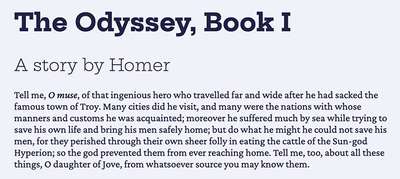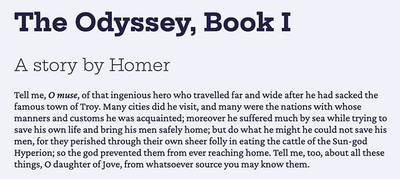
While I was at ATypI Tokyo a couple weeks ago, Google had some big announcements (I covered those a bit last week). The new version of their API was particularly great to hear, as this marks the first support for using variable fonts on their platform. It’s a small set of typefaces, but there is some nice variety and what they have is really well done. There are 10 typefaces in all, with a selection of serifs, sans, rounded, slab, and monospace. Two of the serifs have italics as well, making them an interesting experiment for body copy usage. I created an example page that we played around with a bit in my workshop last week, and included it live in my talk, both at Web Unleashed in Toronto.
A sample page in CodePen
A sample page on CodePen loading Hepta Slab and Crimson Pro as variable fonts from Google Fonts' new API
I’ve now created a demo on CodePen as well, and will walk through the setup here with a few examples. As the launch announcement page states, the syntax is pretty strict, but it didn’t take long to get up and running with it, and now it’s feeling pretty snappy.
A list of available Variable Fonts on Google
Here are all the different variable fonts you can play with for now
In going through the announcement it’s clear that this will eventually be how all the fonts are served, not just specifically variable fonts. You can still request a single weight of a font, like so:
https://fonts.googleapis.com/css2?family=Roboto:wght@700
You can see that the font-family attribute/value pair is the same, but the way you specify weight and italic is a little different. Here’s the current syntax:
/css?family=Roboto:700
You’ll note that whereas the original syntax just expected a weight value (in this case 700) after the family name, now you’re specifying ‘wght’ and supplying a value. This is so when requisition a variable font, it’s now possible to specify an axis (or more than one), and then supply a second set of values after the ‘@’ sign. Multiple weights can be requested too:
/css2?family=Roboto:wght@400;700
Note that the weight values are listed after the ‘@’ sign separated by semicolons. If you wanted to add italics, you have to specify each combination:
/css2?family=Roboto:ital,wght@0,100;1,100;1,700
This will get you Italic and weight combinations of ‘upright 100’, ‘Italic 100’, and ‘Italic 700’.
Now for the variable fonts. To get Crimson Pro with a weight axis (with a range of 200 to 900), you would request it like this:
/css2?family=Crimson+Pro:wght@200..900
Note that this time the values after the ‘@’ sign are separated by ‘…’ which indicates that this is a range, not two separate values. When requesting Italics as well as upright, you have to indicate the axes and ranges requested for each:
/css2?family=Crimson+Pro:ital,wght@0,200..900;1,200..900
Or just Italics with weight range:
/css2?family=Crimson+Pro:ital,wght@1,200..900
You can either link to the request from the ‘head’ of your HTML page, or ‘@import’ from within your CSS.
The whole thing looks like this:
<link href="https://fonts.googleapis.com/css2?family=Crimson+Pro:ital,wght@0,200..900;1,200..900&display=swap" rel="stylesheet">
Or:
@import url('https://fonts.googleapis.com/css2?family=Crimson+Pro:ital,wght@ 0,200..900;1,200..900&display=swap');
You can then work with the fonts just as you would if you were self-hosting, and be confident that the family grouping will be working properly as well.
p {
font-family: ‘Crimson Pro’, Georgia, serif;
font-weight: 350;
}
Thus, with the code above any text in a paragraph would be set in Crimson Pro, and bold would be properly bold, and Italic actual Italics.
The complete demo page
The sample page shows a nice range of weights in the Hepta Slab-set headings, and regular and a slightly bolded italic in Crimson Pro